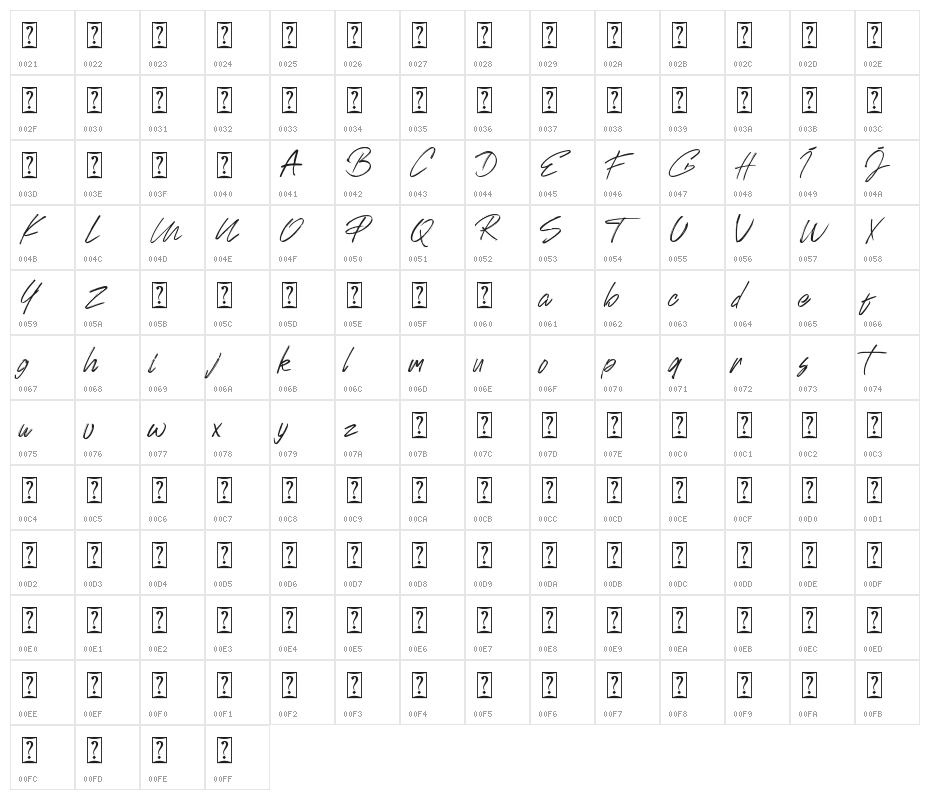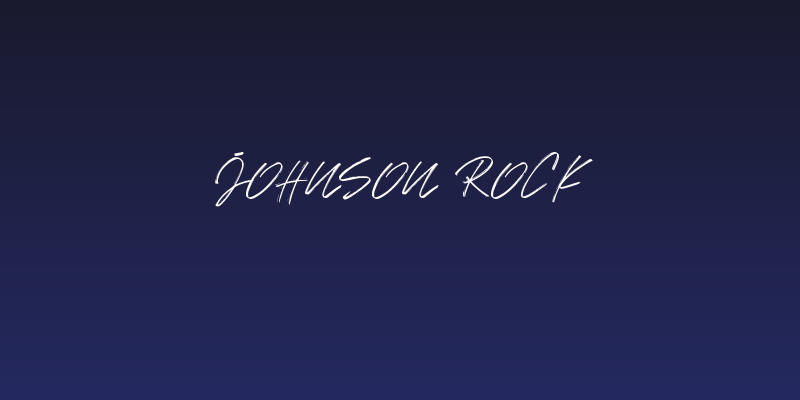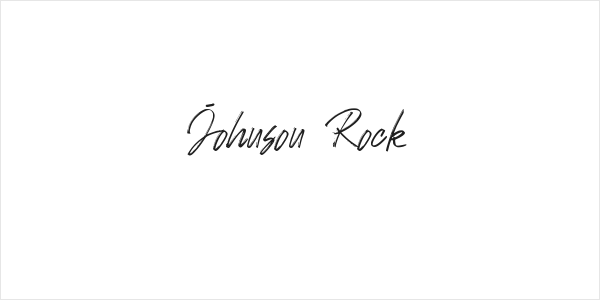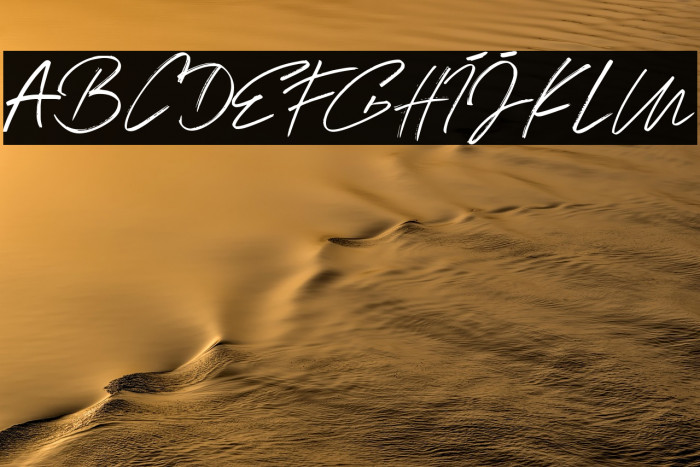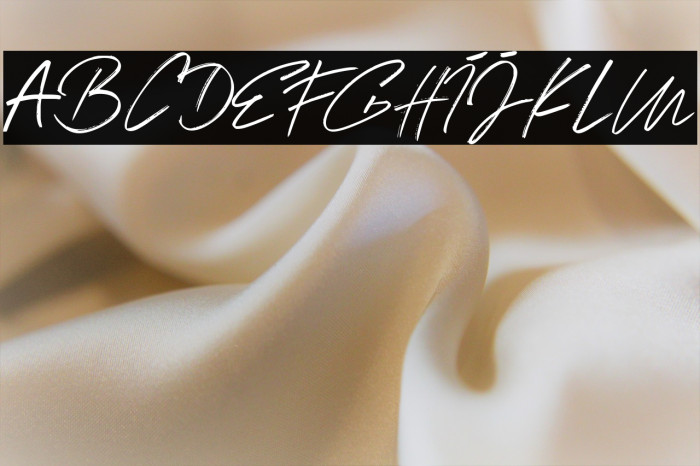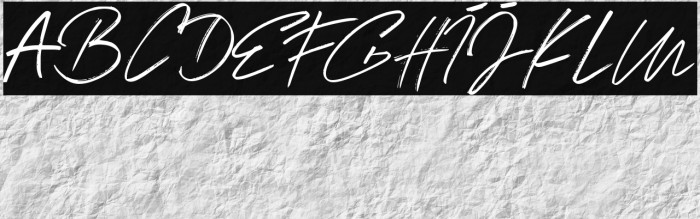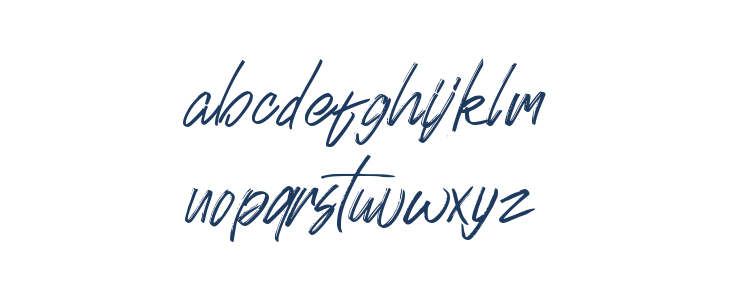
Johnson Rock Font
Johnson Rock Description
This font features a dynamic and fluid script style, characterized by its elegant and flowing letterforms. The uppercase letters exhibit a graceful, sweeping motion, while the lowercase letters maintain a consistent rhythm and balance. The strokes are smooth and connected, giving the font a handwritten appearance. The overall design is both stylish and legible, making it suitable for a variety of creative applications. The absence of special characters suggests a focus on alphabetic expression, emphasizing its use in personal or artistic contexts.
| Use Case | Logos, Invitations, Artistic Text |
| Proposed Projects | Ideal for wedding invitations, greeting cards, personal branding, and artistic projects. |